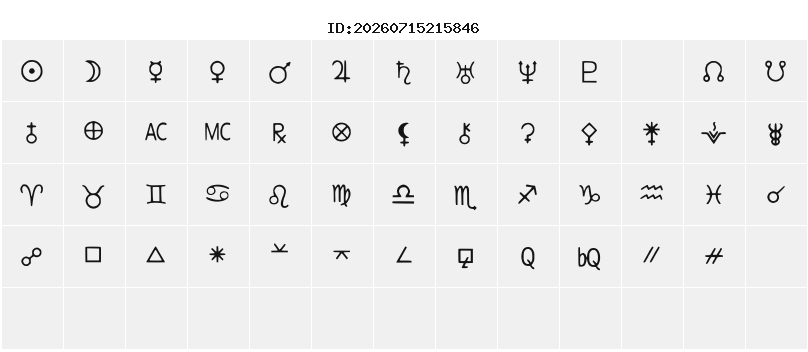
AstroDotBasic Preview
• Font Name: AstroDotBasic
• Full Font Name: AstroDotBasic
About AstroDotBasic.ttf
AstroDotBasic.ttf is a modern, elegant sans-serif font designed for ultimate readability and visual harmony. Perfect for branding, headlines, web design, and print materials.